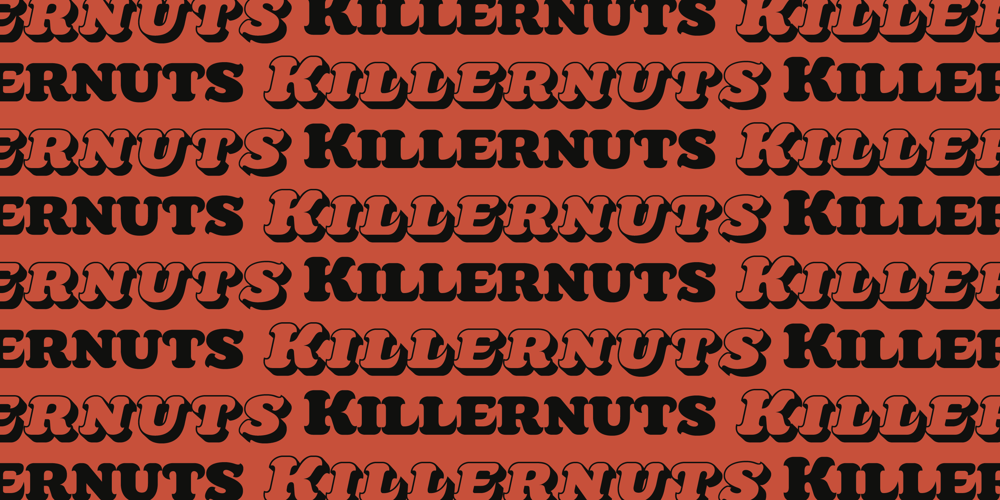
Killernuts Font Family was designed by Ryoichi Tsunekawa and published by Dharma Type. Killernuts contains 2 styles and family package options. Wood type for display. Serifs like brush strokes are associated with Japanese calligraphy ‘Shodo’. East meets West. There are two styles, Regular for ordinary use and 3D for more eye-catchy part.